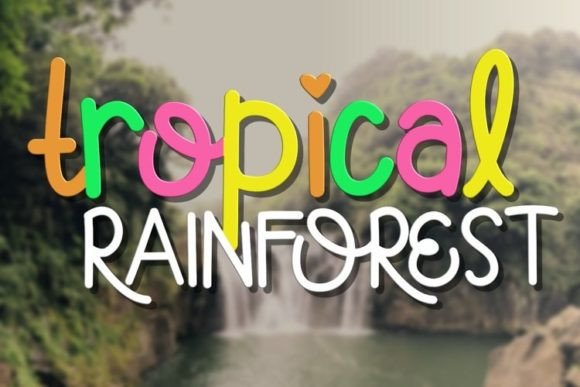
Voyage to a tropical utopia where palm trees sway rhythmically and vibrant blooms paint the landscape with a kaleidoscope of colors. Let Tropical Rainforest's whimsical dance of hand-drawn characters transport you to this enchanting paradise. Its organic charm and imperfect curves embrace the beauty of nature's imperfections, evoking a sense of authenticity and warmth that will captivate your audience.
Unleash your creativity with Tropical Rainforest's playful spirit. Whether you're designing social media graphics or crafting alluring book covers, this font will add a touch of whimsy and delight to your projects. Its cheerful and easygoing vibe will effortlessly transport your audience to a serene and carefree state of mind, leaving them captivated by its enchanting allure.
Picture your designs adorned with Tropical Rainforest's vibrant hues, evoking the lush greens of the rainforest canopy, the golden rays of sunshine filtering through the leaves, and the vibrant symphony of tropical birdsong. This font will transform your creations into captivating visual masterpieces that resonate with warmth and joy.
Embrace the spirit of adventure and let Tropical Rainforest guide you on an extraordinary journey of creativity. Dive into its depths and discover a world of endless possibilities, where your imagination knows no bounds. Allow this font to be your compass, leading you to design destinations you never thought possible.